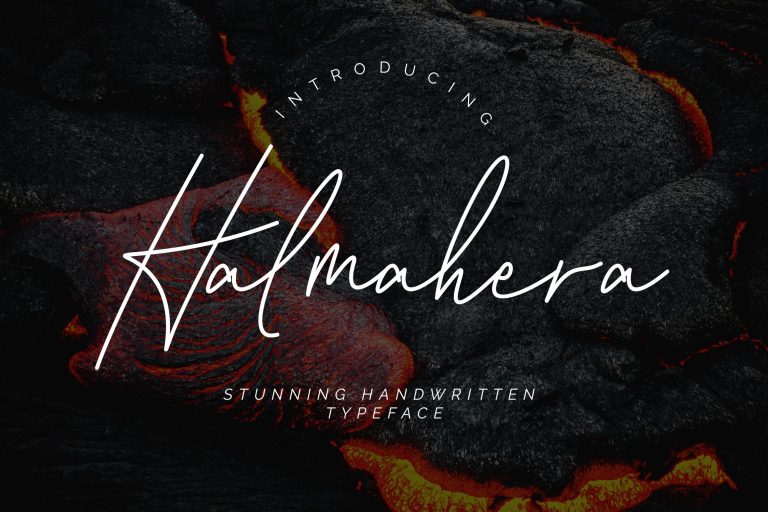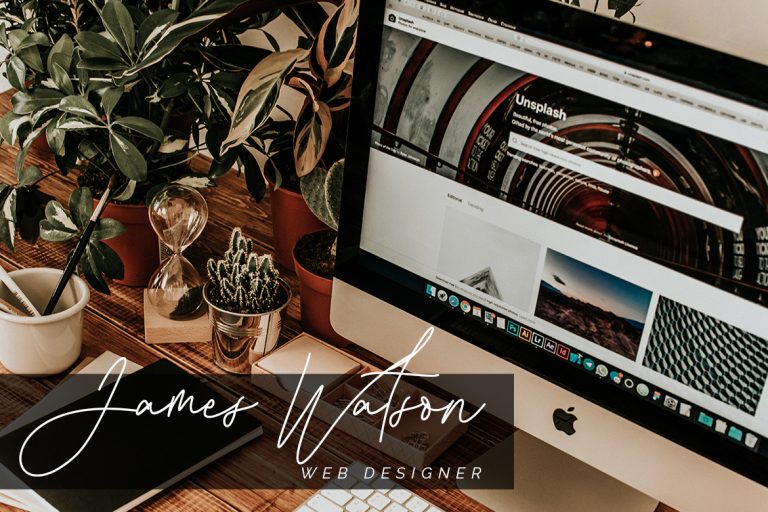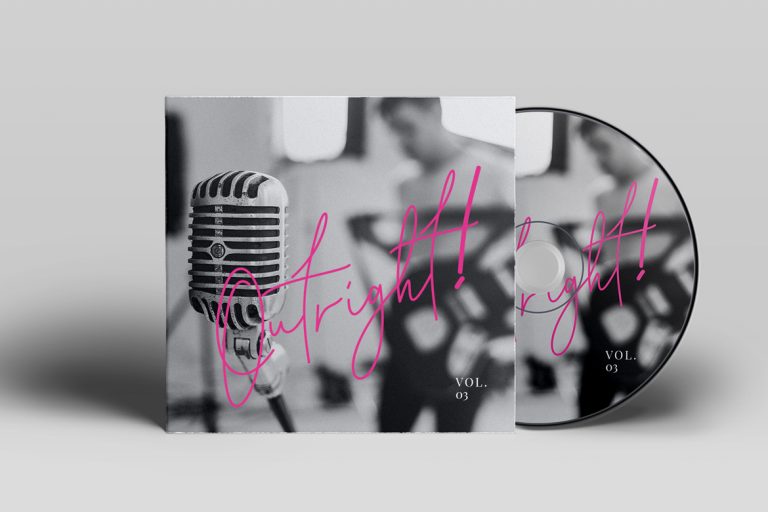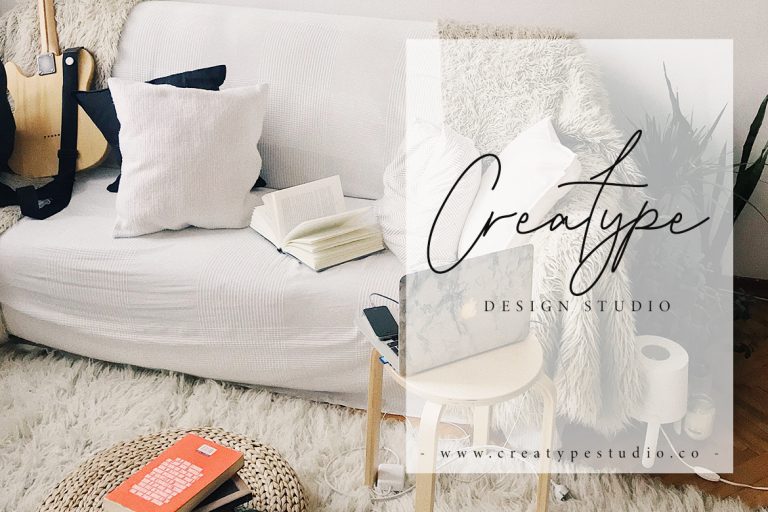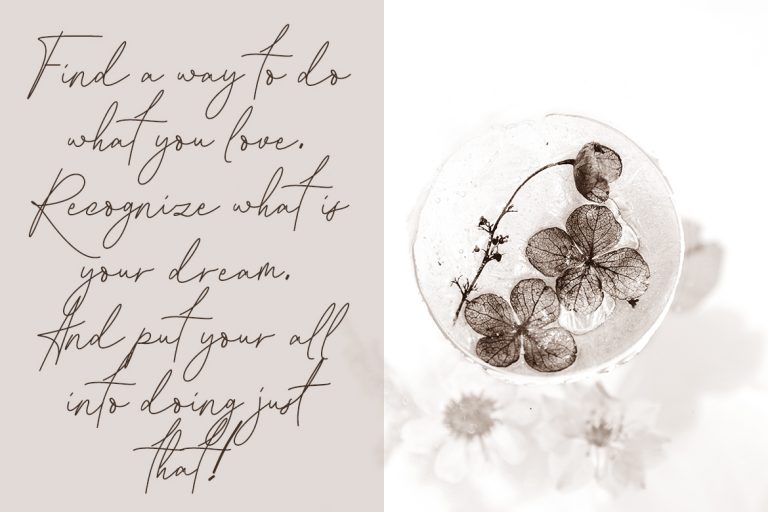
Halmahera Handwritten Script
Halmahera is a fresh signature font with handwritten feel make this font looks natural, modern, and perfect for any awesome projects.
Halmahera is perfect for branding projects, logo, wedding designs, social media posts, advertisements, product packaging, product designs, label, photography, watermark, invitation, stationery and any projects that need handwriting taste.